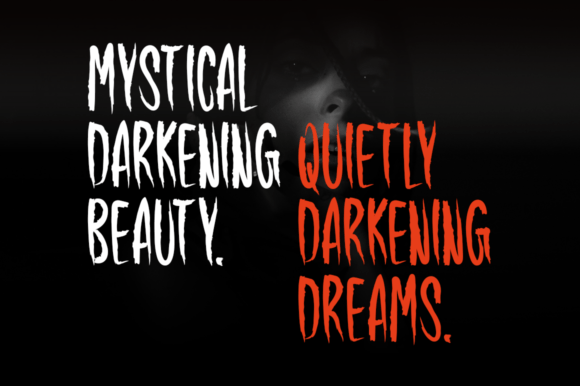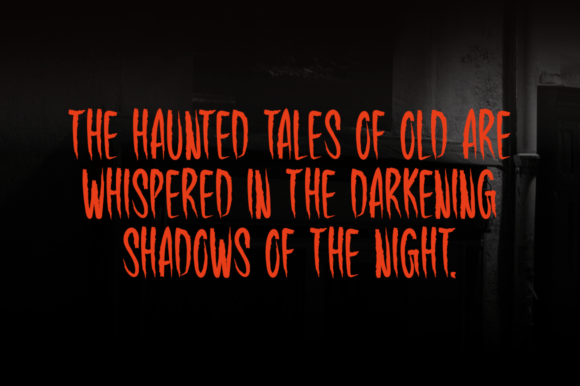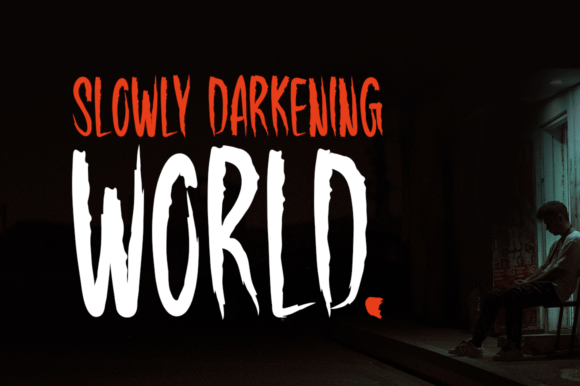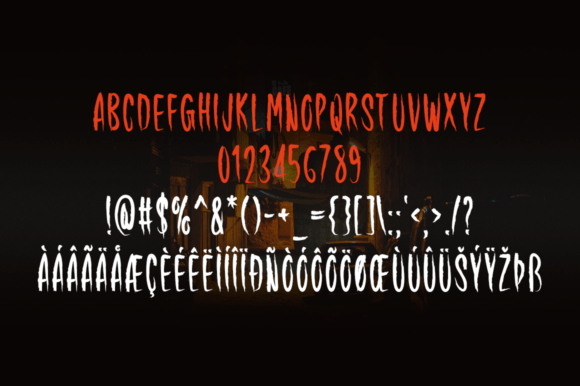
The Ultimate Guide to Darkening Font: Unlocking Creative Possibilities
I’ll never forget the time I was working on a branding project for a trendy coffee shop. My client wanted a bold, eye-catching logo that would stand out on their merchandise and advertising materials. As I scrolled through my font library, I stumbled upon Darkening – a brush display font that caught my attention. I was immediately drawn to its unique, hand-painted aesthetic and knew it would be perfect for the job. In this article, I’ll share my experience with Darkening, its features, and how to make the most of this versatile font.
An Honest Review of Darkening Font
What I Love About Darkening ✨
- 💥 **Unique brush display style**: Darkening boasts a distinctive, hand-painted look that’s perfect for creating eye-catching designs.
- ✅ **Highly versatile**: This font works well for various applications, including stationery, logos, t-shirts, papers, print designs, website headers, picture frames, flyers, album covers, posters, and image sliders.
- 🎨 **OpenType features**: Darkening supports OpenType features, allowing you to access a range of glyphs, stylistic alternates, and swashes to add more personality to your designs.
- ⚠️ **Limited legibility at small sizes**: As with many display fonts, Darkening can be challenging to read at small font sizes. Be sure to test it in different contexts to ensure it’s legible for your specific project.
- 🤔 **Some characters may require manual kerning**: Depending on your design, you may need to adjust the kerning of certain characters to achieve optimal spacing and visual balance.
The Backstory Behind Darkening
Darkening was designed with the intention of capturing the raw, expressive qualities of hand-painted lettering. The font’s creator aimed to craft a versatile typeface that would allow designers to add a personal touch to their projects. With its bold, brush display style, Darkening has become a go-to font for creatives looking to make a statement.
| Font Name | Darkening Font |
| Author | Seemly Fonts |
| What type of projects is Darkening best suited for? | Darkening works well for various applications, including stationery, logos, t-shirts, papers, print designs, website headers, picture frames, flyers, album covers, posters, and image sliders. |
| Is Darkening a difficult font to read? | As with many display fonts, Darkening can be challenging to read at small font sizes. Be sure to test it in different contexts to ensure it’s legible for your specific project. |